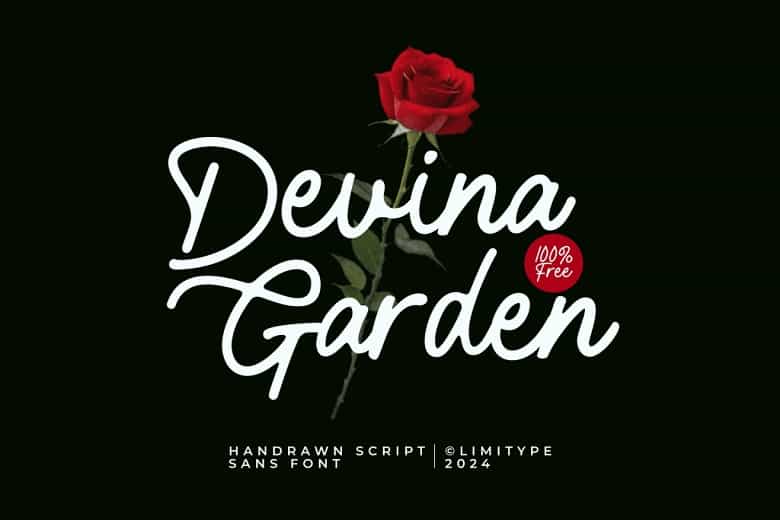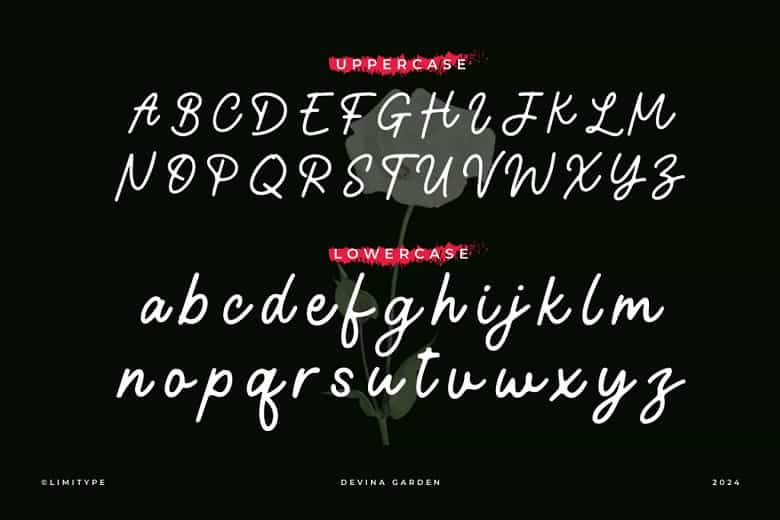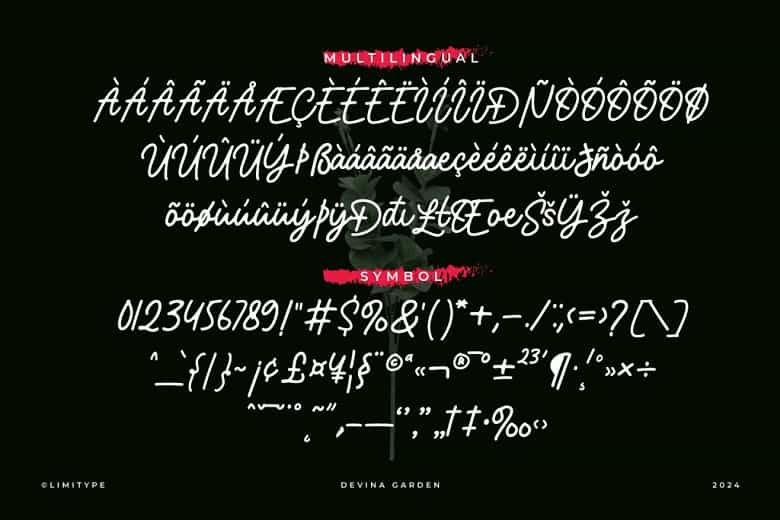
Devina Garden is a sans script handwritten font with modern monoline style, it contains uppercase and lowercase letters, symbols, multilingual and stylistic alternates.